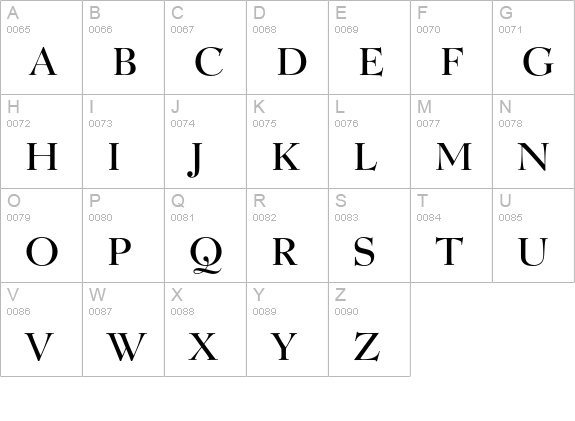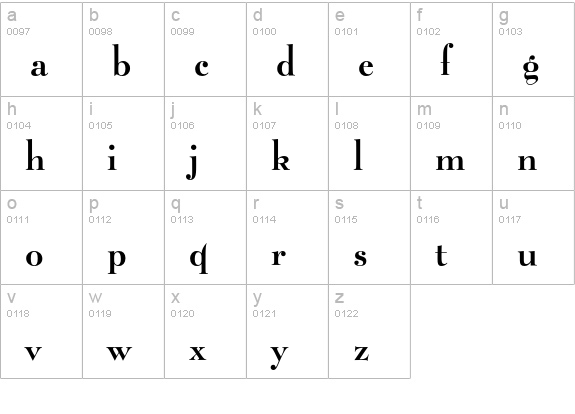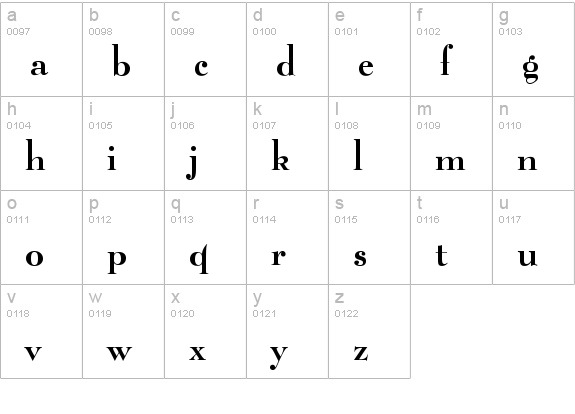
Lucian Font Details
Lucian font is a stylish and elegant typeface that exudes sophistication and modernity. Its sleek lines and clean design make it perfect for a wide range of design projects, from branding to editorial layouts. With its versatile nature, Lucian font can effortlessly elevate any design to the next level. What sets Lucian font apart is not only its aesthetic appeal but also its accessibility. This high-quality typeface is available for free download at FontsMarket.com, making it a valuable addition to any designer's toolkit. Whether you are working on a website, poster, or logo, Lucian font offers endless possibilities for creative expression. Embrace the beauty and versatility of Lucian font today and take your designs to new heights. Download this stunning typeface for free and unlock its full potential at FontsMarket.com.